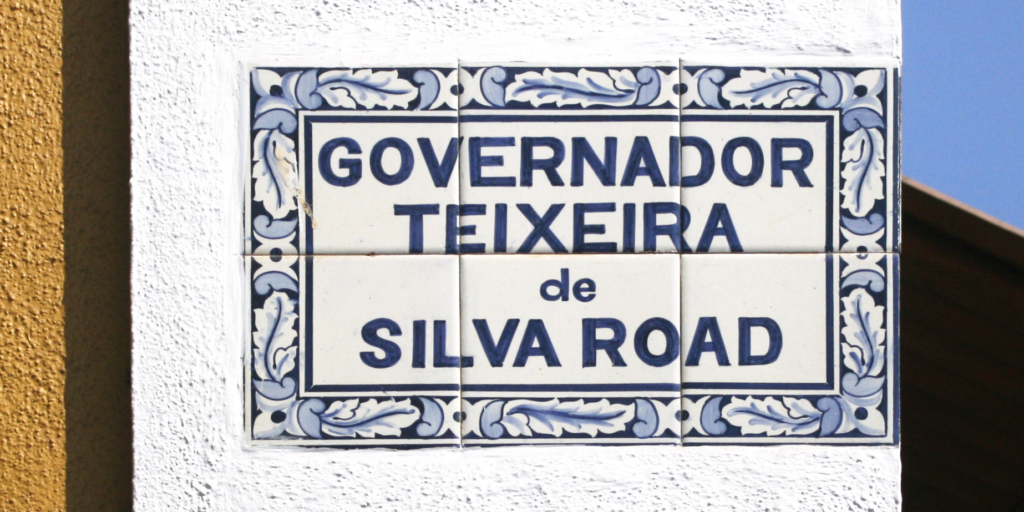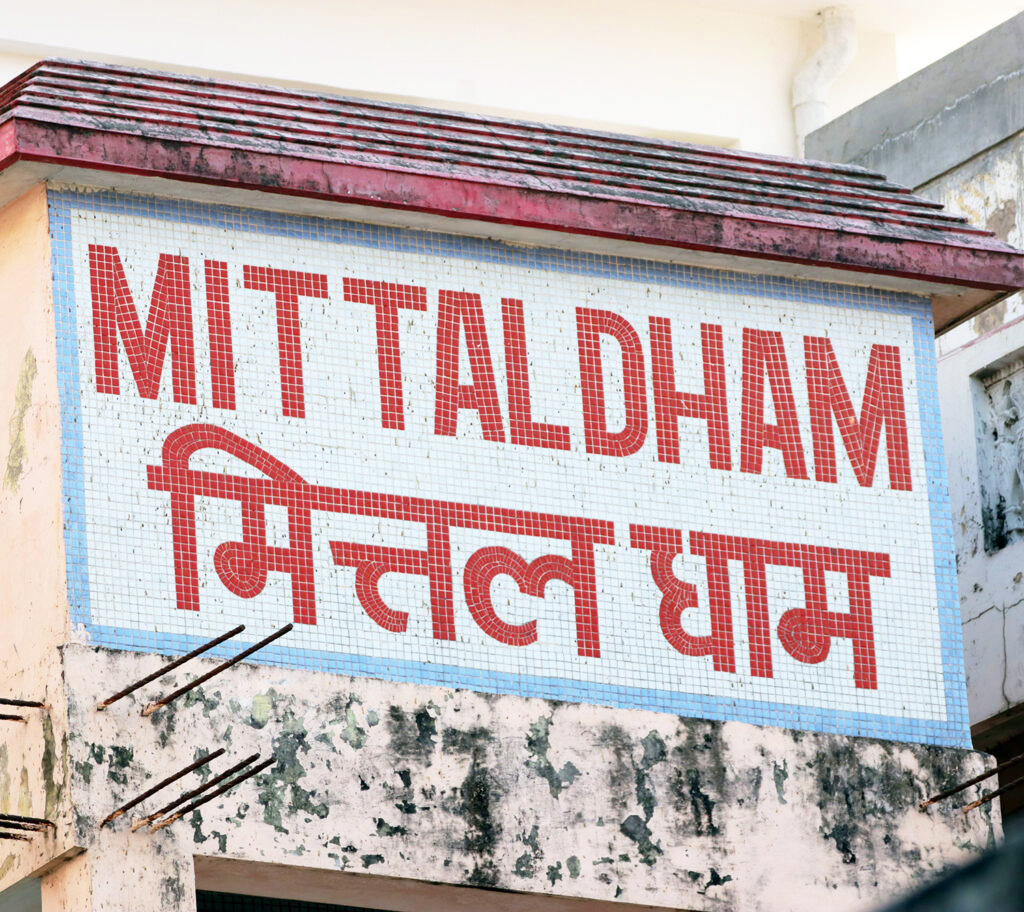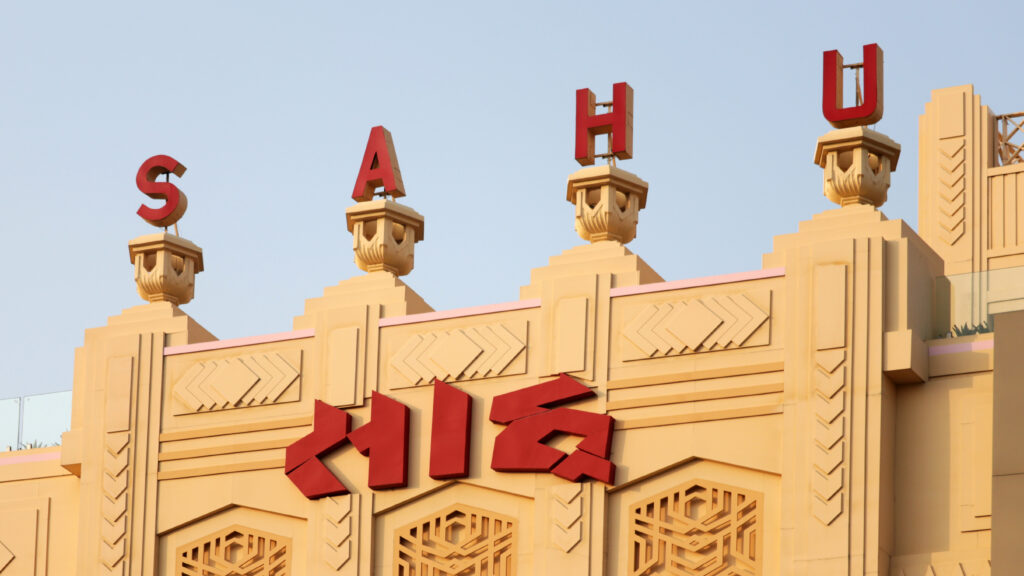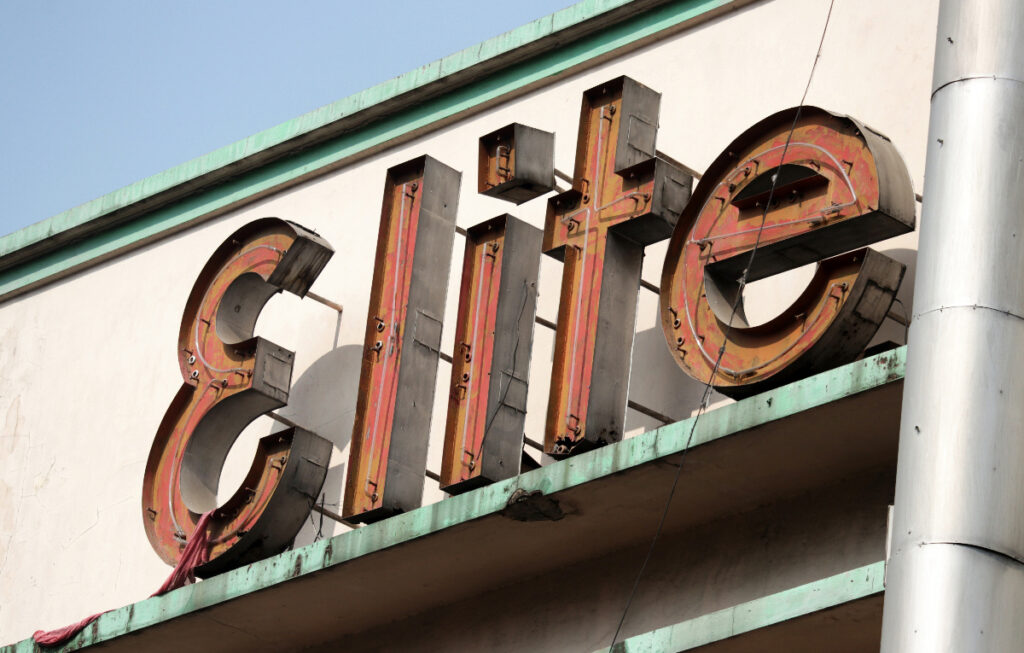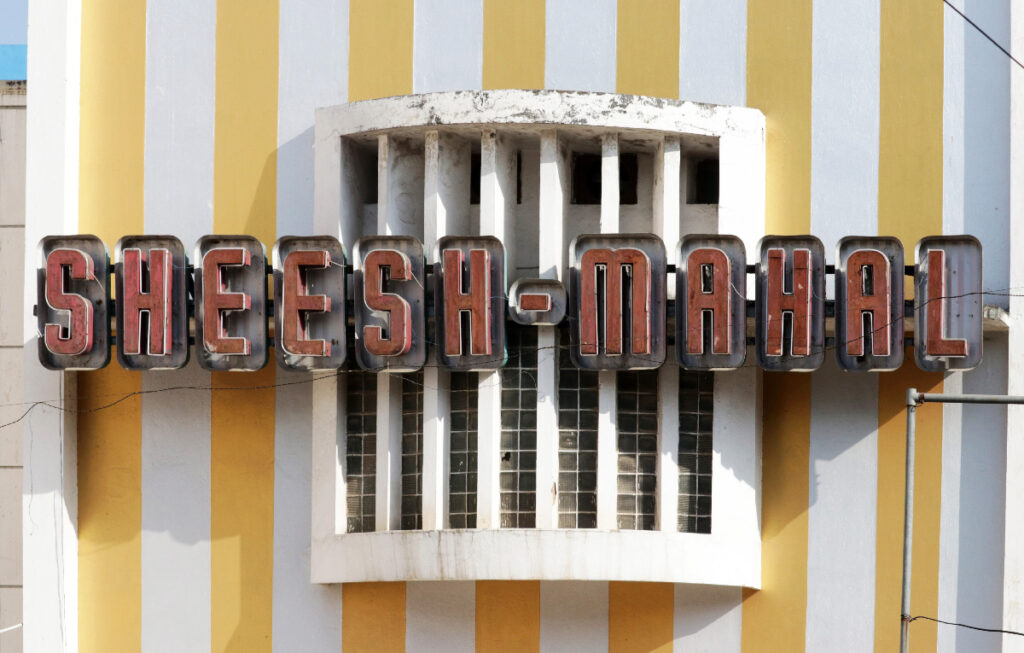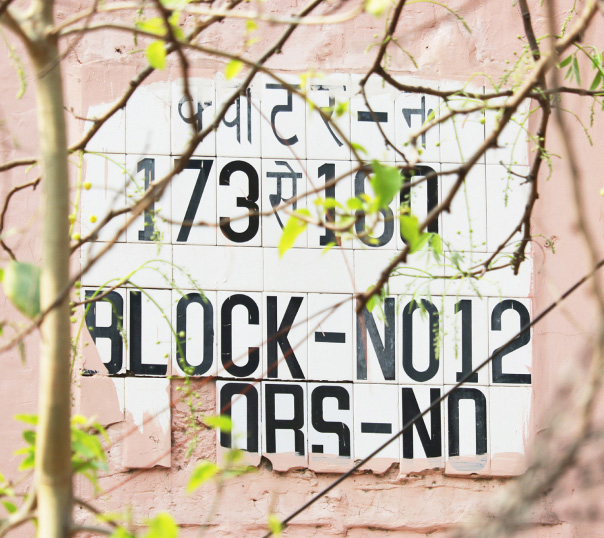
India Street Lettering zines celebrate the diversity of letterforms on signages in India’s streets. Like turns of a kaleidoscope, they illuminate patterns — established and unexpected — to expand our understanding of typographic forms and styles, and conventions for their use.
The theme of each zine bundle is catalysed by a medley of influences such as material, script, location, function and historical context. Since 2023, two batches have been published: the first focused on the use of tiles in street lettering, and the second features cinema signs from Lucknow, Hyderabad and Kolkata.
Old Christian cemeteries around India are an opportunity to see what Latin letterforms looked like in the country historically, beyond the lens of print.
This small zine with its collection of photographs featuring gravestones from the late 18th to the mid-20th century is an invitation to explore and study exactly that. You’ll find lettering in a range of styles: from uncial to blackletter, transitional to Tuscan, all the way to geometric sans serif. Weathered headstones also reveal the remnants of a specialised craft, lead lettering, as well as archaic typographic conventions, like the use of superior letters in abbreviated names.
A long-time admirer of cinema signs, Pooja traveled to three state capitals — Lucknow in the north, Hyderabad in the south and Kolkata in the east — in 2023–24 in search of the most compelling examples from those cities.
What stands out in this set is the domination of Art Deco as the pre-eminent style of architecture for cinemas. The zines offer a look at the different kind of letterforms that were matched with these buildings, and the materials and techniques used to fabricate them. The sign on Kolkata’s Ellora provide a clue as to how Deco sensibilities were applied to local scripts, not only through formal interventions but also by using the same materials as the murals that adorn the façade. But not all examples show visual matching: the savage Devanagari sign for Lucknow’s Sahu stands in stark contrast to the well-preserved ornamental charms of building. All four cinema signs from Hyderabad are in neon, and neon appears in Kolkata and Lucknow as well. However, most of these signs are in poor condition.
Many single-screen cinemas are on their last legs in large cities, and in February 2024, Elite in Kolkata was demolished along with its stunning neon sign. See more cinema signs in the archive, and read about the making of this zine bundle.
Tiles may not be the first material that comes to mind when one thinks about street lettering in India, but look closely, and one finds that they are used in several ways to create recognisable lettering that is rooted in local culture.
This bundle of zines recognises three such themes — azulejos, or hand-painted, glazed tiles seen in Panjim which are striking visual reminders of Portuguese influence in Goa; fast-disappearing tiled signage in New Delhi, which is distinctive in its use of monospaced letterforms in two scripts; and mosaic signs, which are a provocation to appreciate and understand how vastly different letterforms from Devanagari and Latin scripts adapt when they are rendered in a limiting medium.